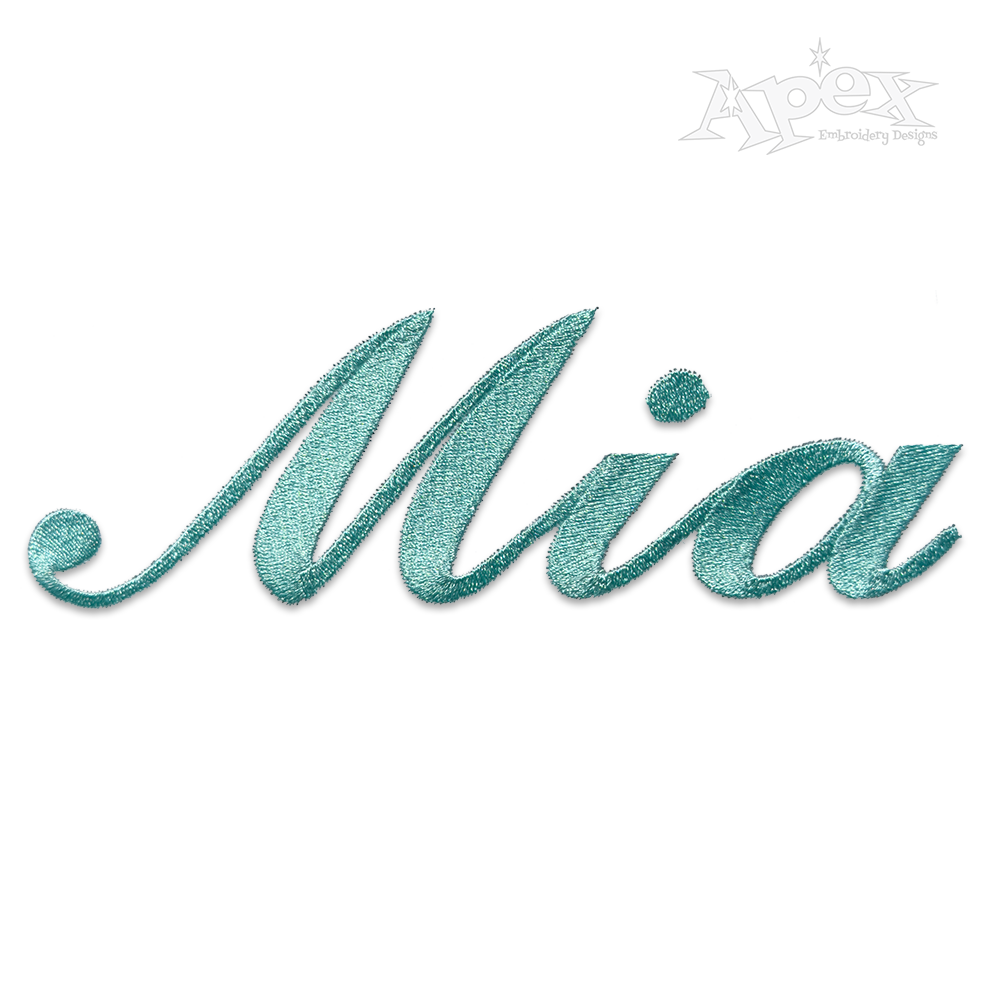
Ford Script Embroidery Font
Ford Motors Car Script Machine Embroidery Fonts. Stitch a Custom Name to your Garage Shirt using Same as Company Logo to Match Alphabet Digitized Letters
One size upper case and lower. Letters stitch and sew out great on all embroidery sewing machines.